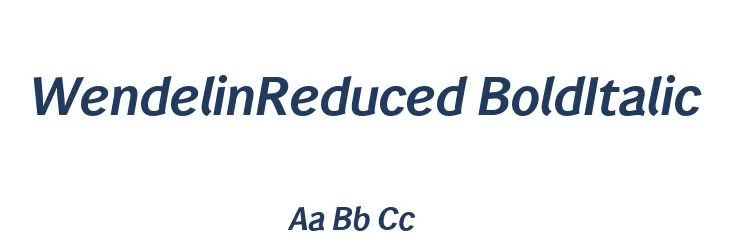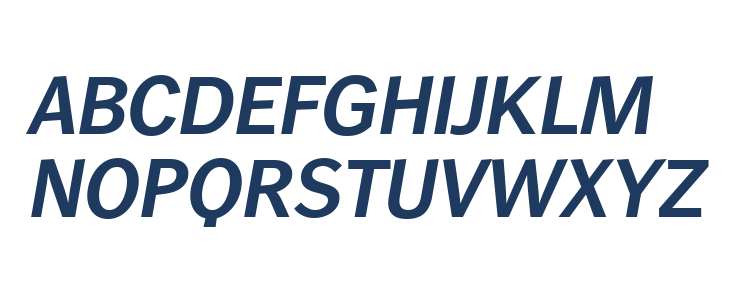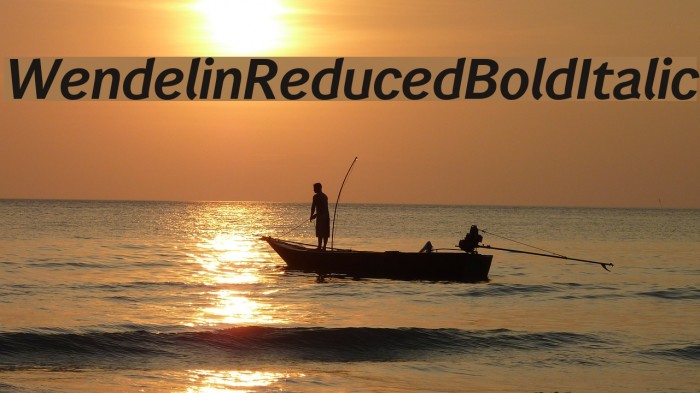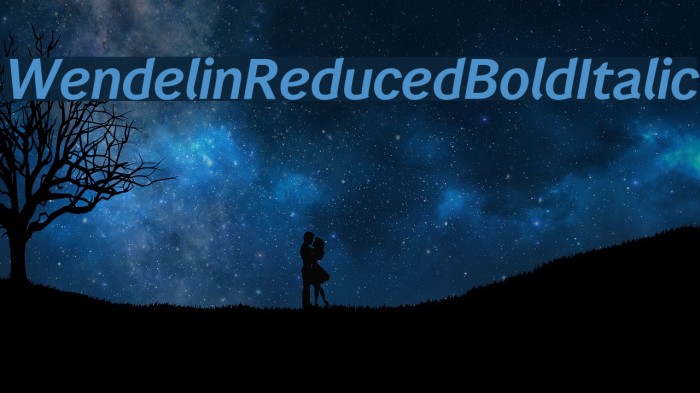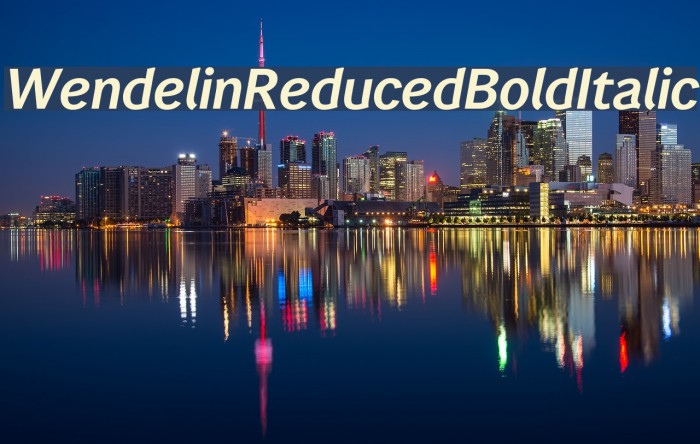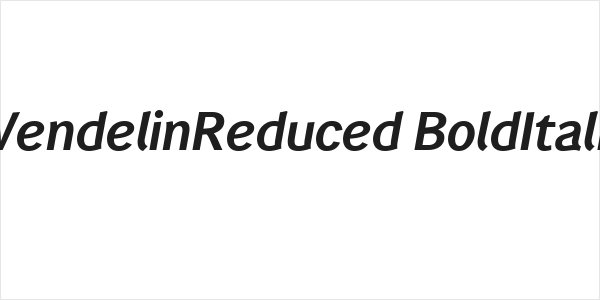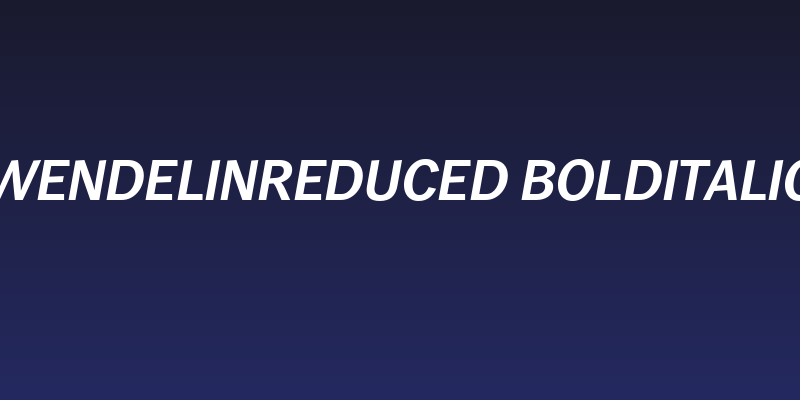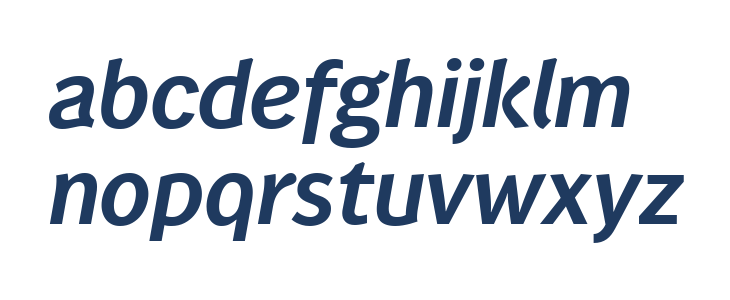
WendelinReduced-BoldItalic Font
WendelinReduced-BoldItalic Description
This font exhibits a bold and italicized style, characterized by its clean and modern sans-serif design. The letters are slightly slanted, giving a dynamic and forward-moving appearance. The strokes are consistent in thickness, providing a uniform look across all characters. The uppercase and lowercase letters maintain a harmonious balance, with rounded edges that soften the overall aesthetic. The numerals and special characters are designed to match the letterforms, ensuring a cohesive visual experience. This font is versatile, suitable for both digital and print media, and can be used to convey a sense of professionalism and modernity.
| Proposed Projects | Ideal for branding, advertising, headlines, and digital content where a modern and professional look is desired. |